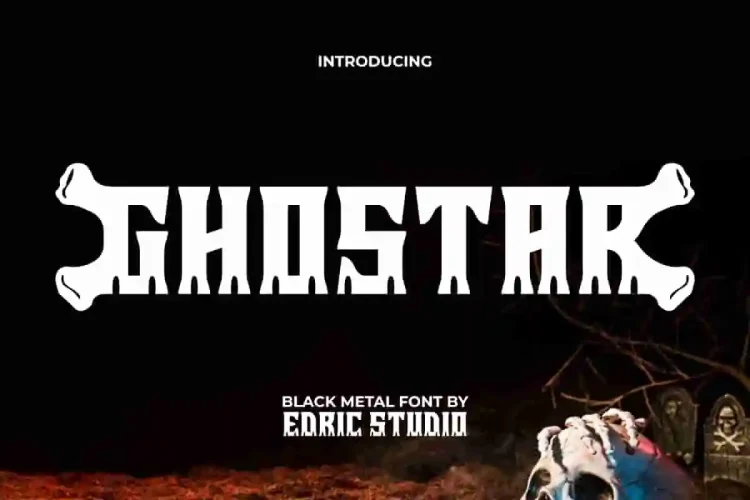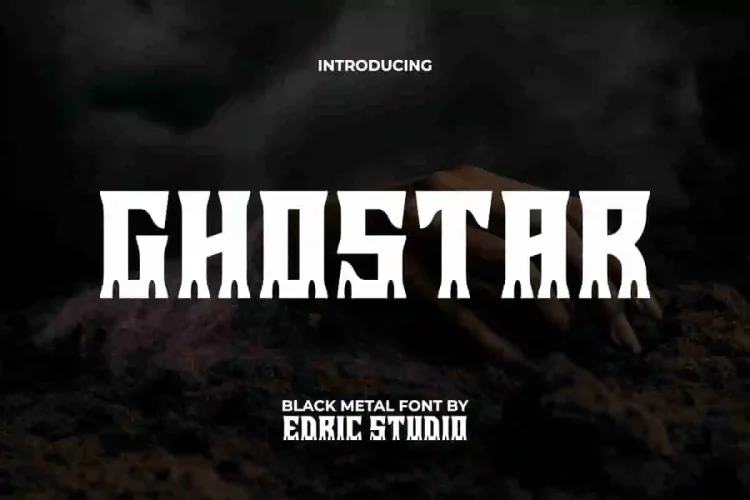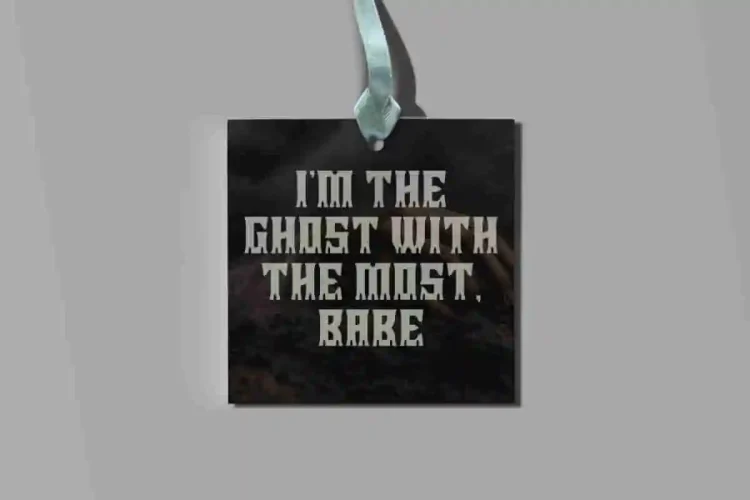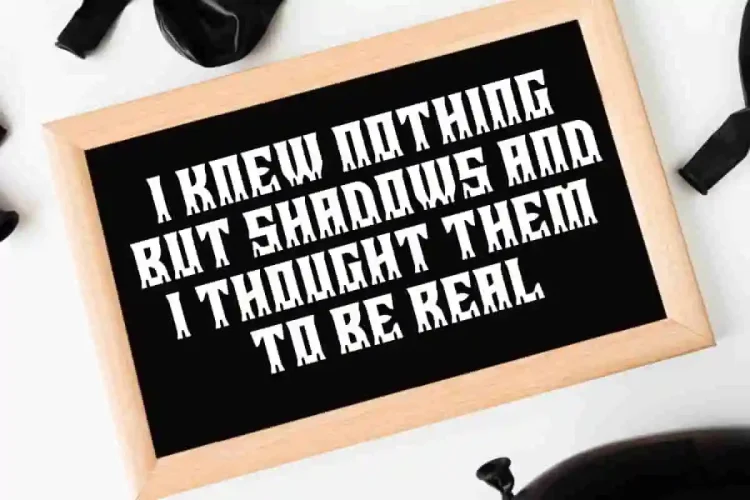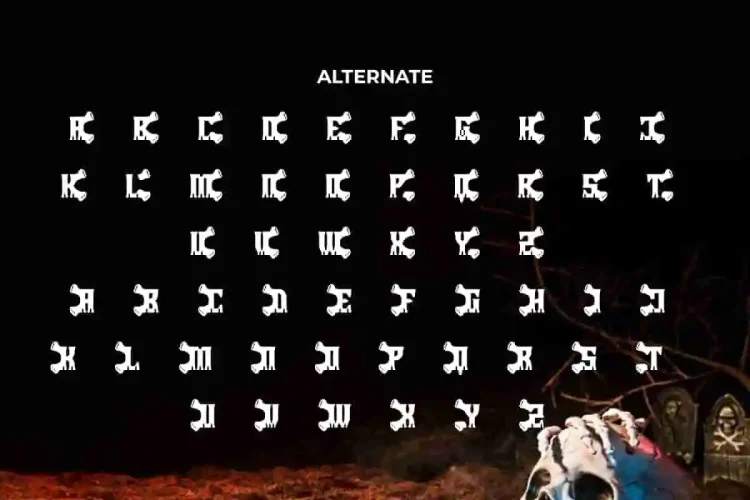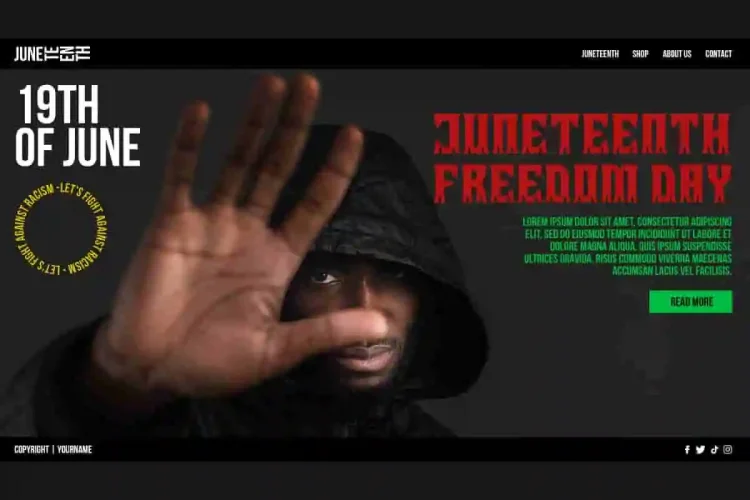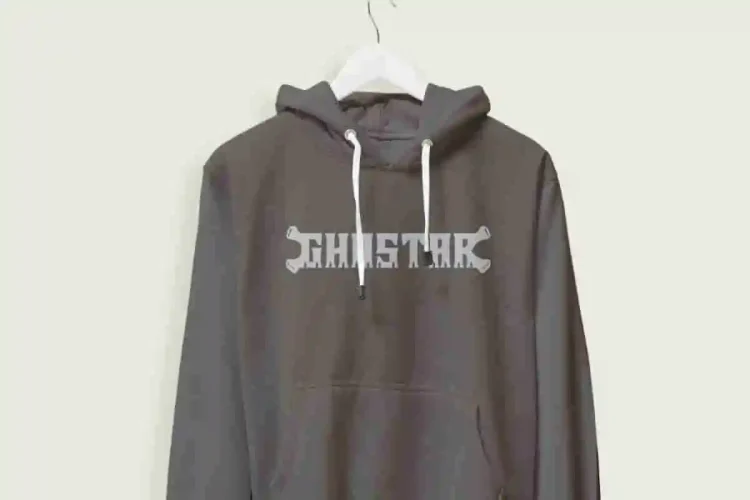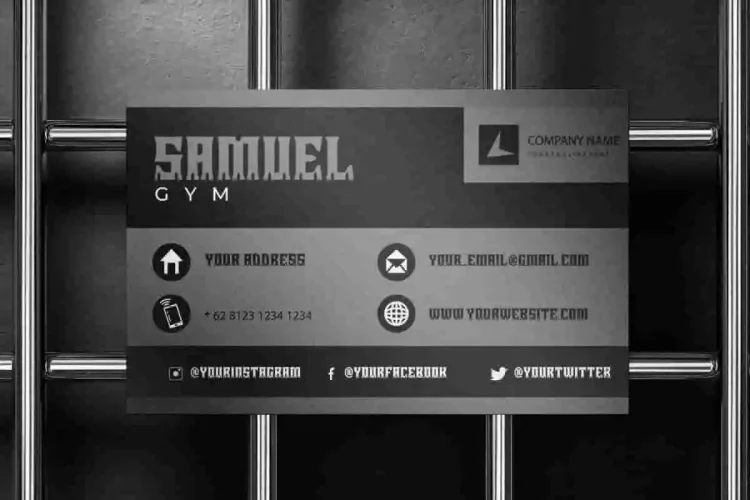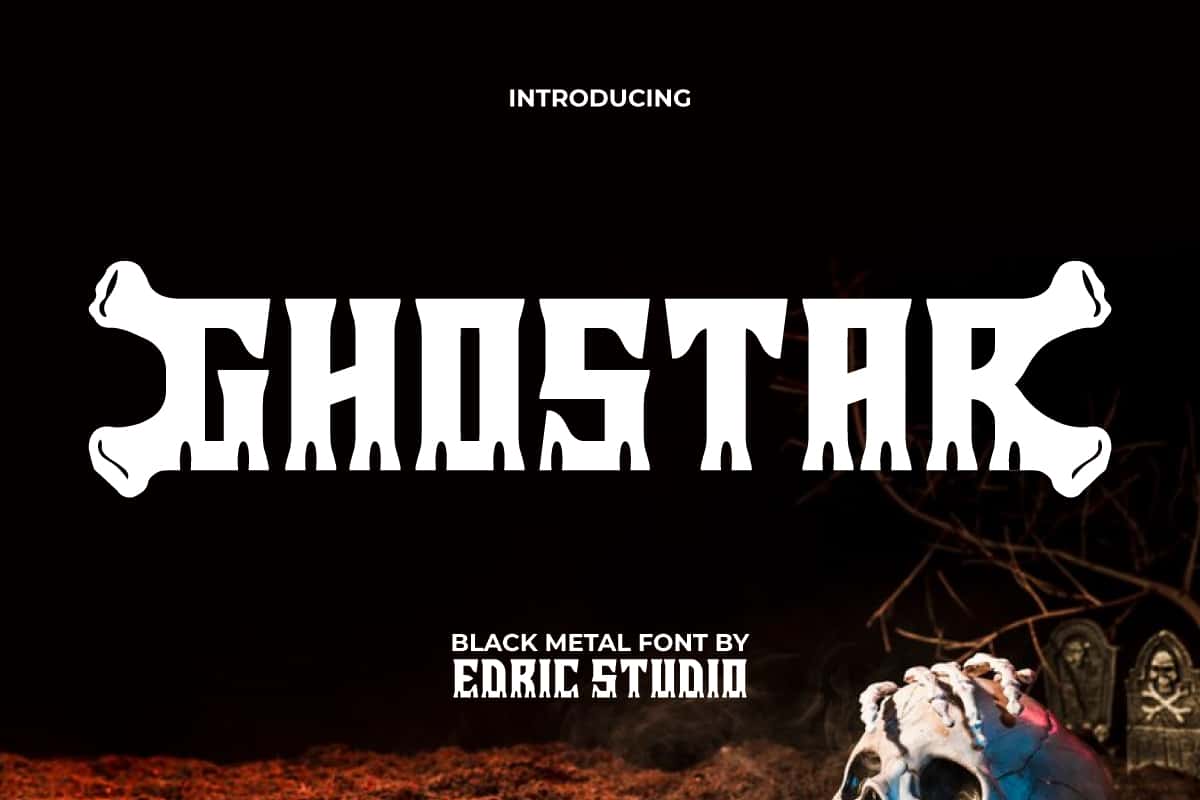
Ghostar Font is a fun spooky display font with a metal blackletter style. The Alternate bone shape that brings a scary impression are uniquely designed to meet the needs of your creative design projects. This font will be perfect for use in banners, blogs, business card, flyer, headers, label tag, mockup, poster, quotes, title, website, and much more.
Ghostar Font includes a complete set of ALL CAPS for both Uppercase and Lowercase letters of different sizes, Numbers, Punctuation, Symbols, and Alternates. This typeface gives off a creepy and mysterious feel, perfect for highlighting the value of your gripping work. Whether it’s for advertising, fashion, film, graphic design, movie, printing, publisher, etc.